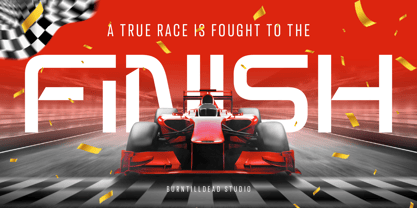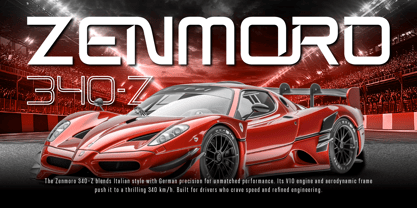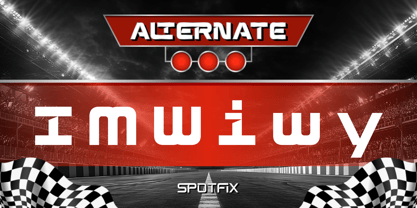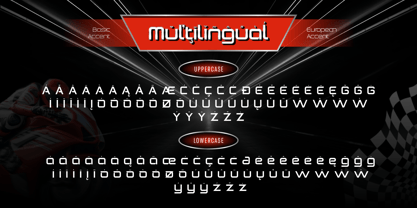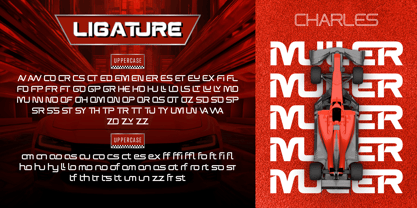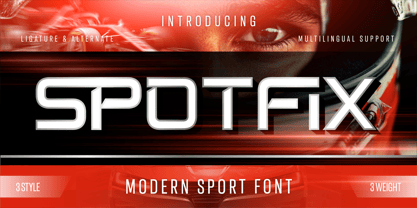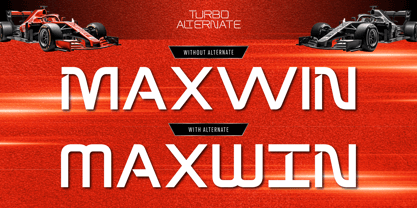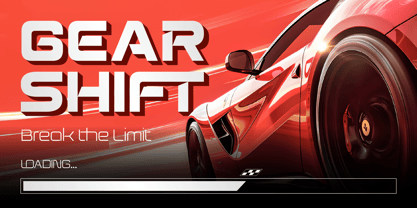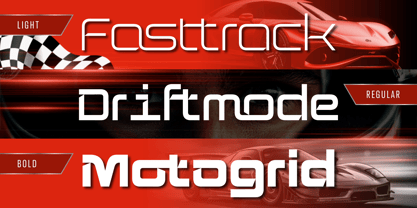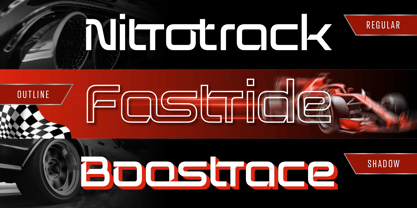
Spotfix
by Burntilldead
The Spotfix Font Family was designed by Eric Kurniawan and published by Burntilldead. Spotfix contains 9 styles and family package options. More about this family
Spotfix is a modern sport display font built for speed, strength, and sharp visual impact. This typeface delivers a bold, futuristic look that instantly grabs attention. Designed with clean geometric forms and dynamic cuts, Spotfix feels fast, confident, and powerful. It works perfectly for sport branding, motorsport visuals, racing posters, game titles, apparel graphics, and any design that needs a strong competitive edge. Spotfix comes with multiple styles and weights, allowing you to create versatile layouts from clean and modern headlines to aggressive, high-energy typography. Features: A - Z set (Uppercase & Lowercase All Caps), Number, Punctuation, Alternates, Ligatures, Multilingual
Designers: Eric Kurniawan
Current Foundry: Burntilldead
Spotfix